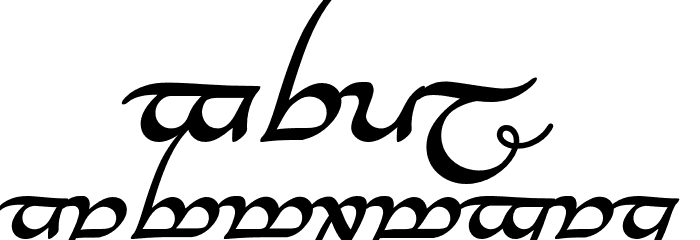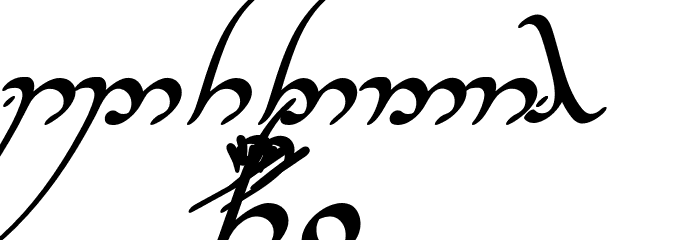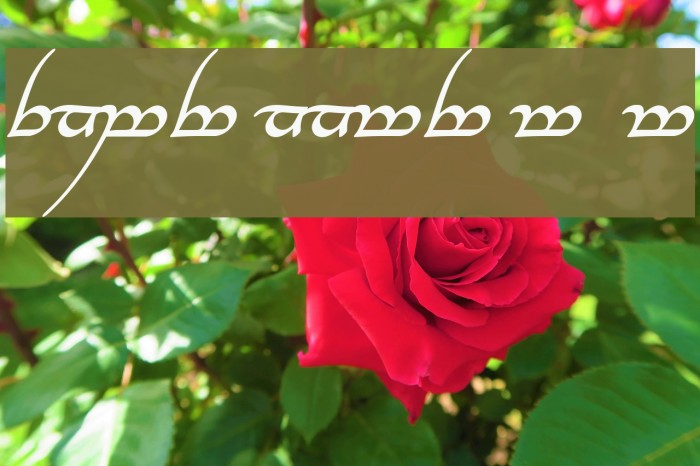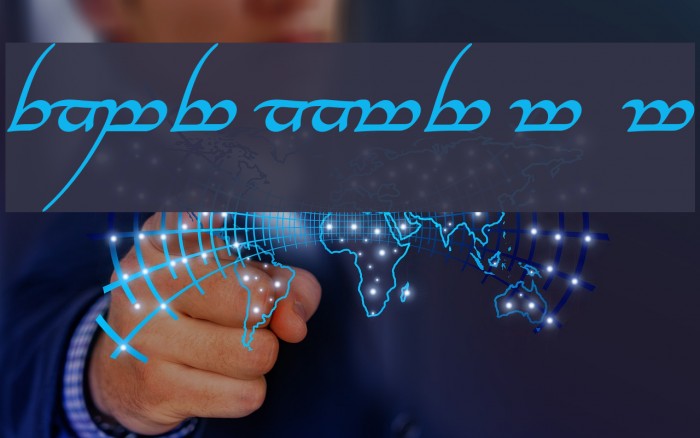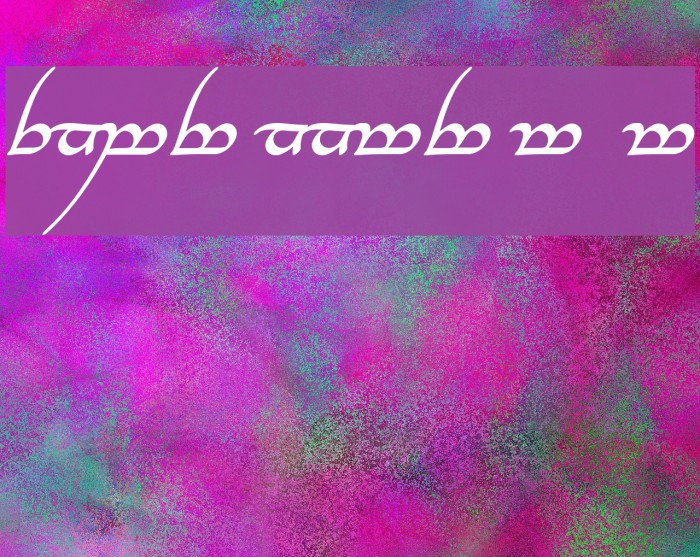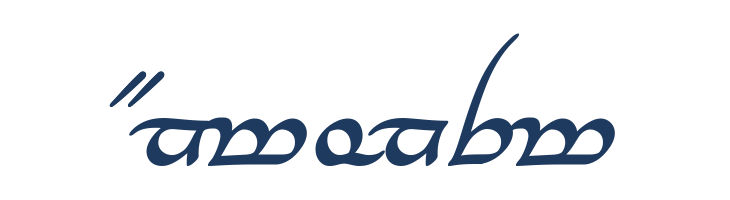
Tengwar Annatar Alt Bold Italic Font
This font features an elegant and flowing script style, reminiscent of ancient calligraphy. The characters are intricately designed with sweeping curves and decorative flourishes, giving it a mystical and enchanting appearance. The strokes are bold and italicized, adding a dynamic and dramatic flair to the text. The overall aesthetic is both sophisticated and artistic, making it ideal for projects that require a touch of fantasy or historical ambiance.
An elegant, bold, and italic script font with a mystical, calligraphic style.
- Proposed Projects: Perfect for fantasy-themed projects, book covers, movie titles, or any design requiring an ancient or magical feel.
- Use Case: Logos, Titles, Decorative text